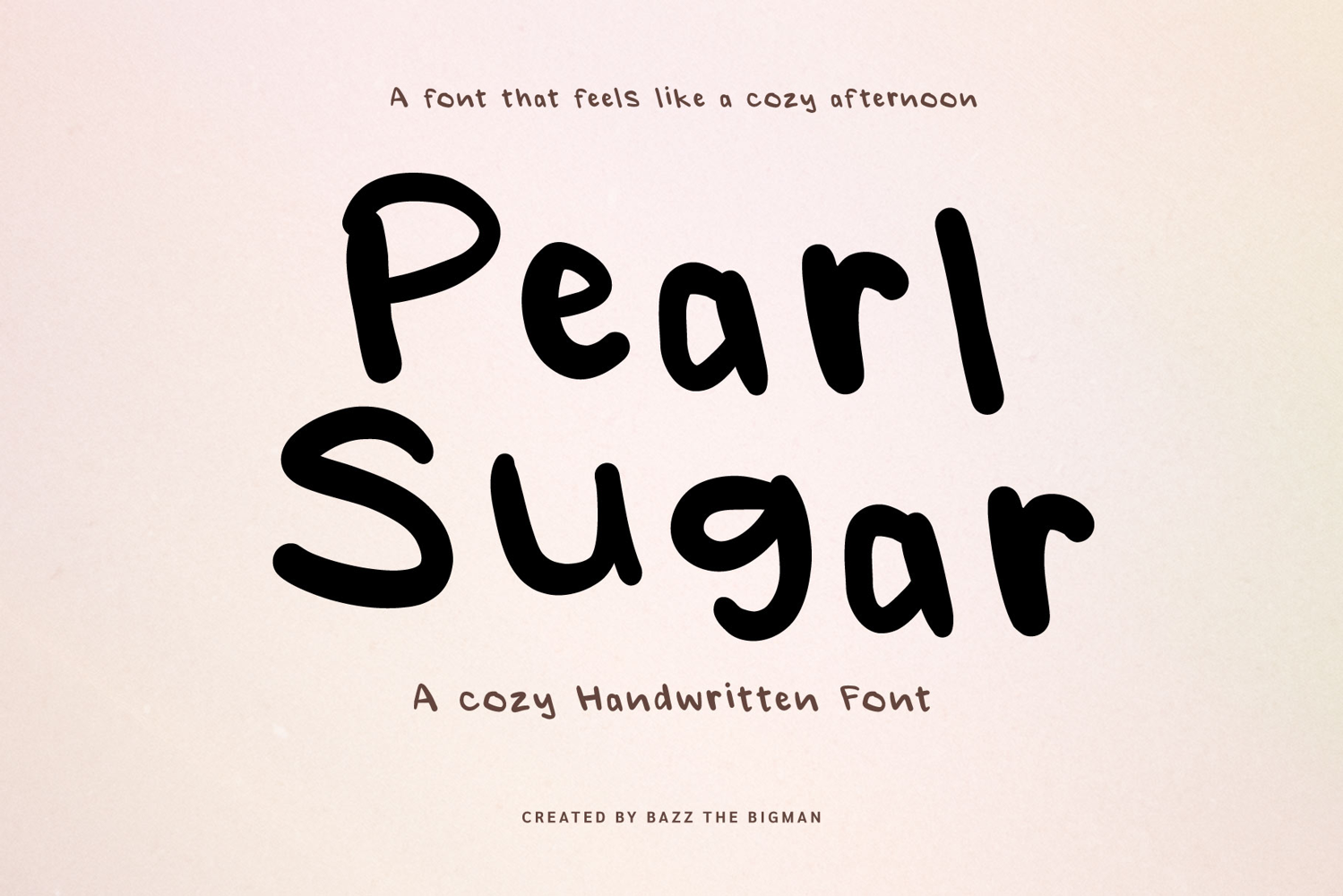
Pearl Sugar is a cozy and natural handwritten font that brings warmth and personality to every design. With soft curves, gentle strokes, and an organic hand-drawn feel, this typeface adds a touch of sweetness to anything you create. Perfect for café menus, digital planners, quotes, home décor branding, product packaging, and any project that needs a friendly and welcoming look.
🎨 PERFECT FOR
• Café menu & coffee branding
• Packaging & labels (soap, bakery, handmade goods)
• Planner, digital notes & bullet journals
• Instagram posts & quote art
• Home & décor typography
• Stickers & printable templates
• Lifestyle branding & logo kits
• Eco-friendly product design